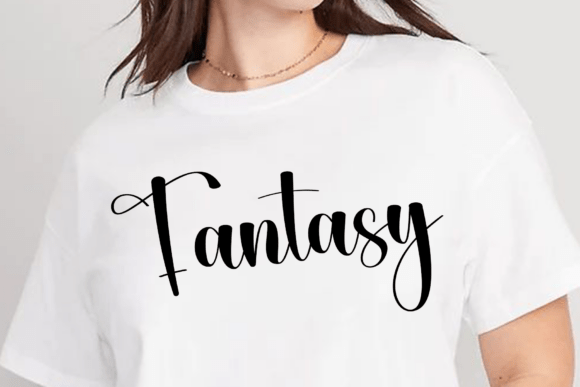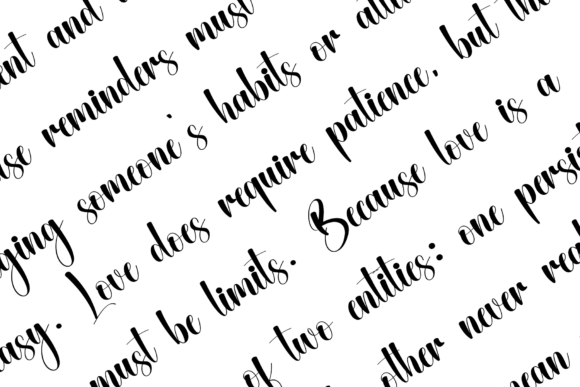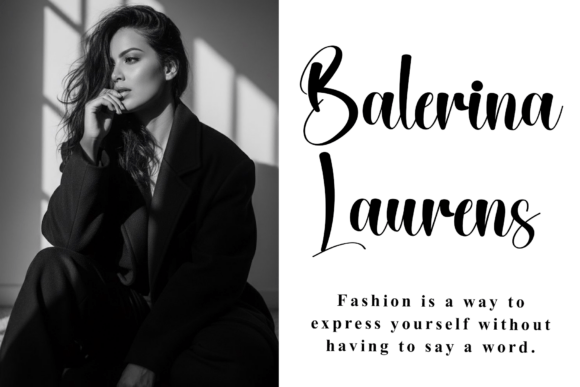
Introduction to Backline Font
Backline font is an elegant and modern handwritten script font that shines with sophistication and charm.
Featuring graceful curves, flowing strokes, and refined ligatures, it’s perfect for wedding invitations, branding, quotes, greeting cards, and feminine logo designs The smooth, stylish lines give Backline a timeless, romantic feel, while its clean structure ensures professional readability.
Key Features of Backline Font
Why Choose Backline Font?
Backline Font offers exceptional quality and versatility, making it a valuable addition to your design toolkit. Whether you’re creating for personal projects or commercial use, Backline Font delivers professional results.